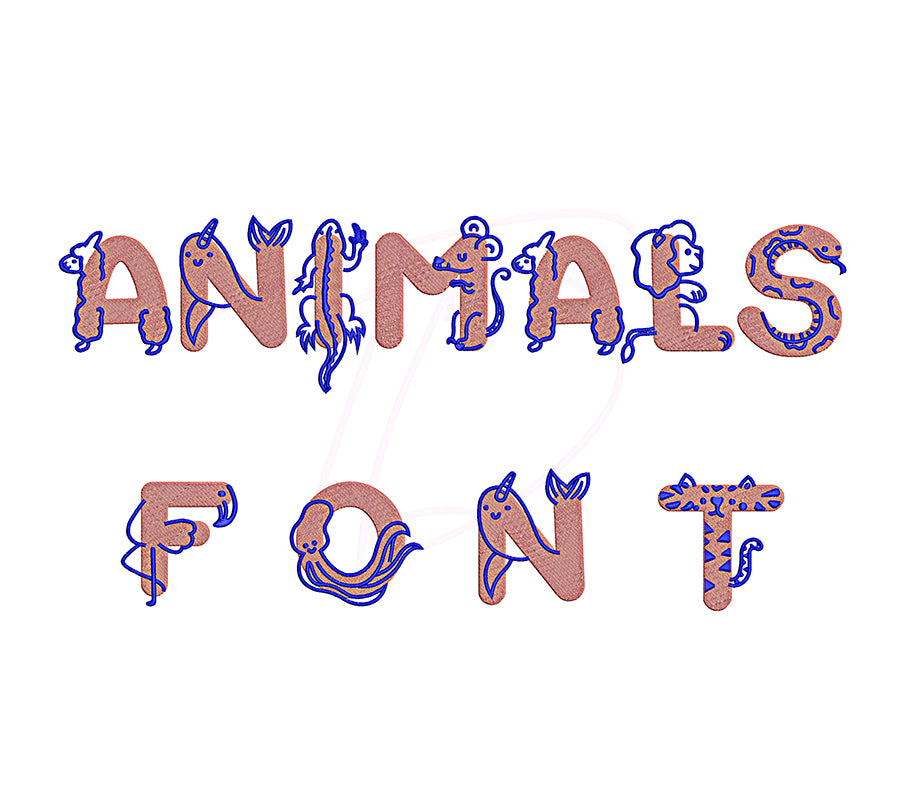
Animals embroidery font. Embroidery alphabet with animal for baby. Cute animal letters for embroidery. BX format
Animals embroidery font.
This font comes with letters in 3 sizes, A-Z (Upper case)